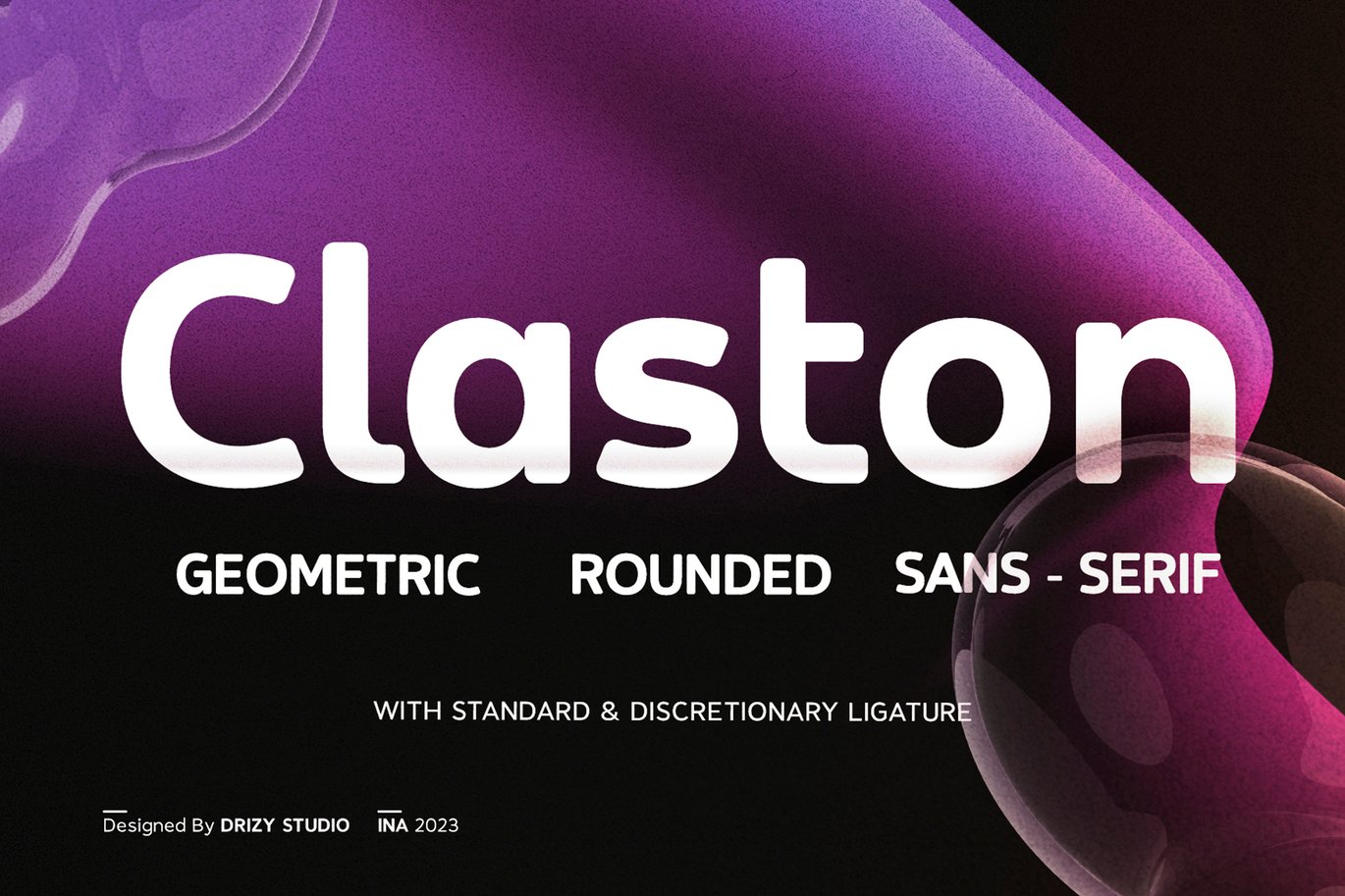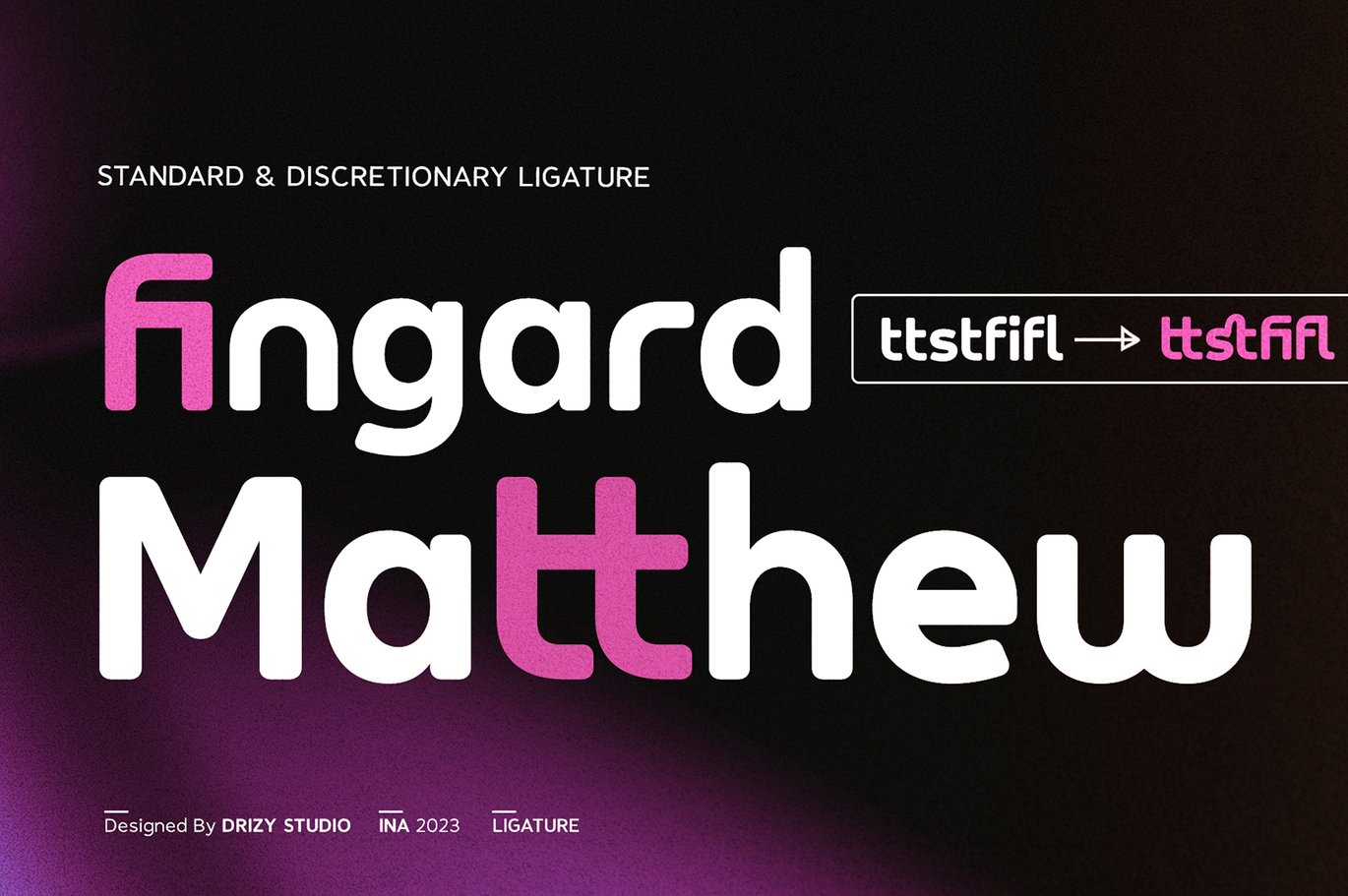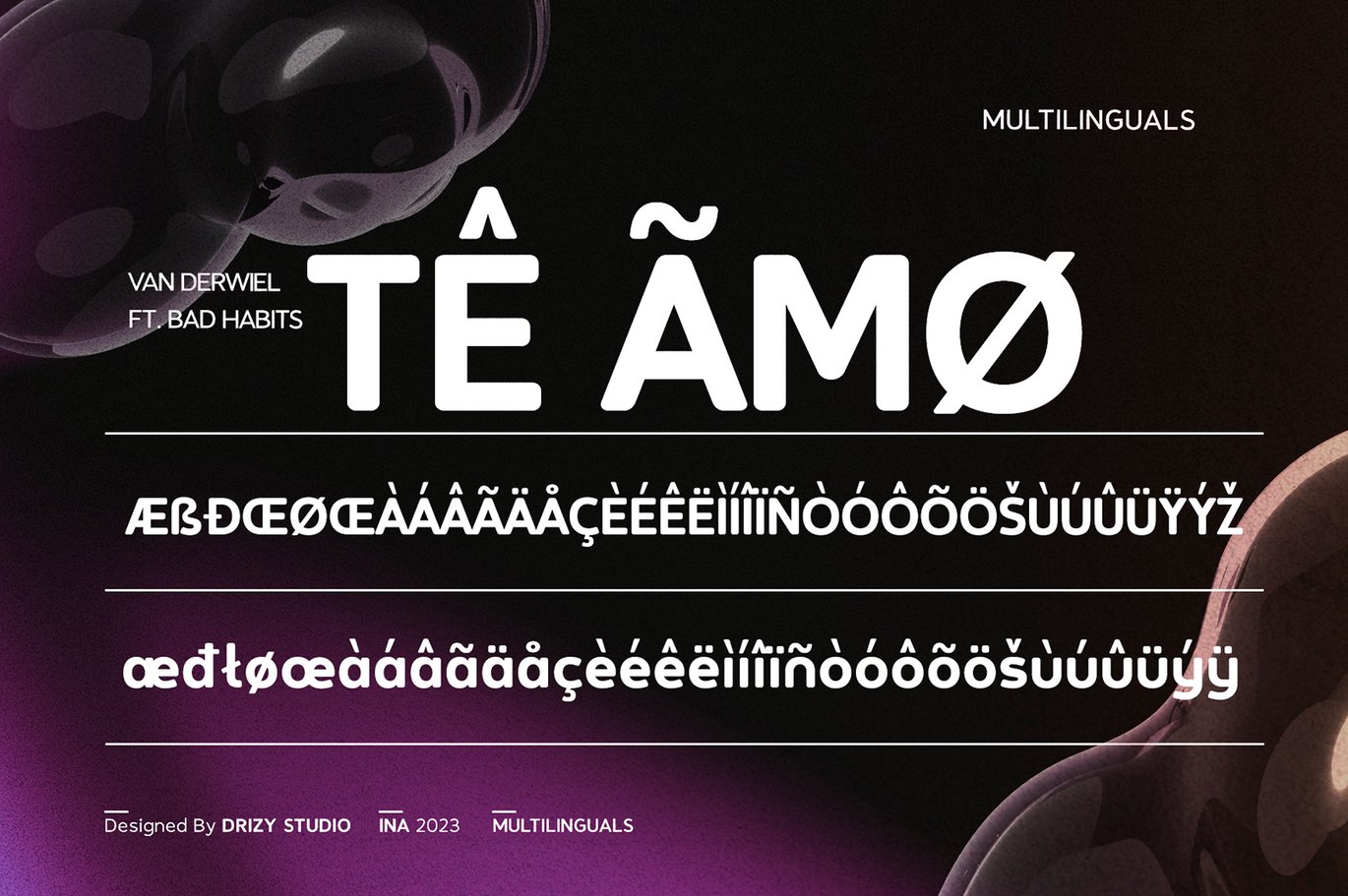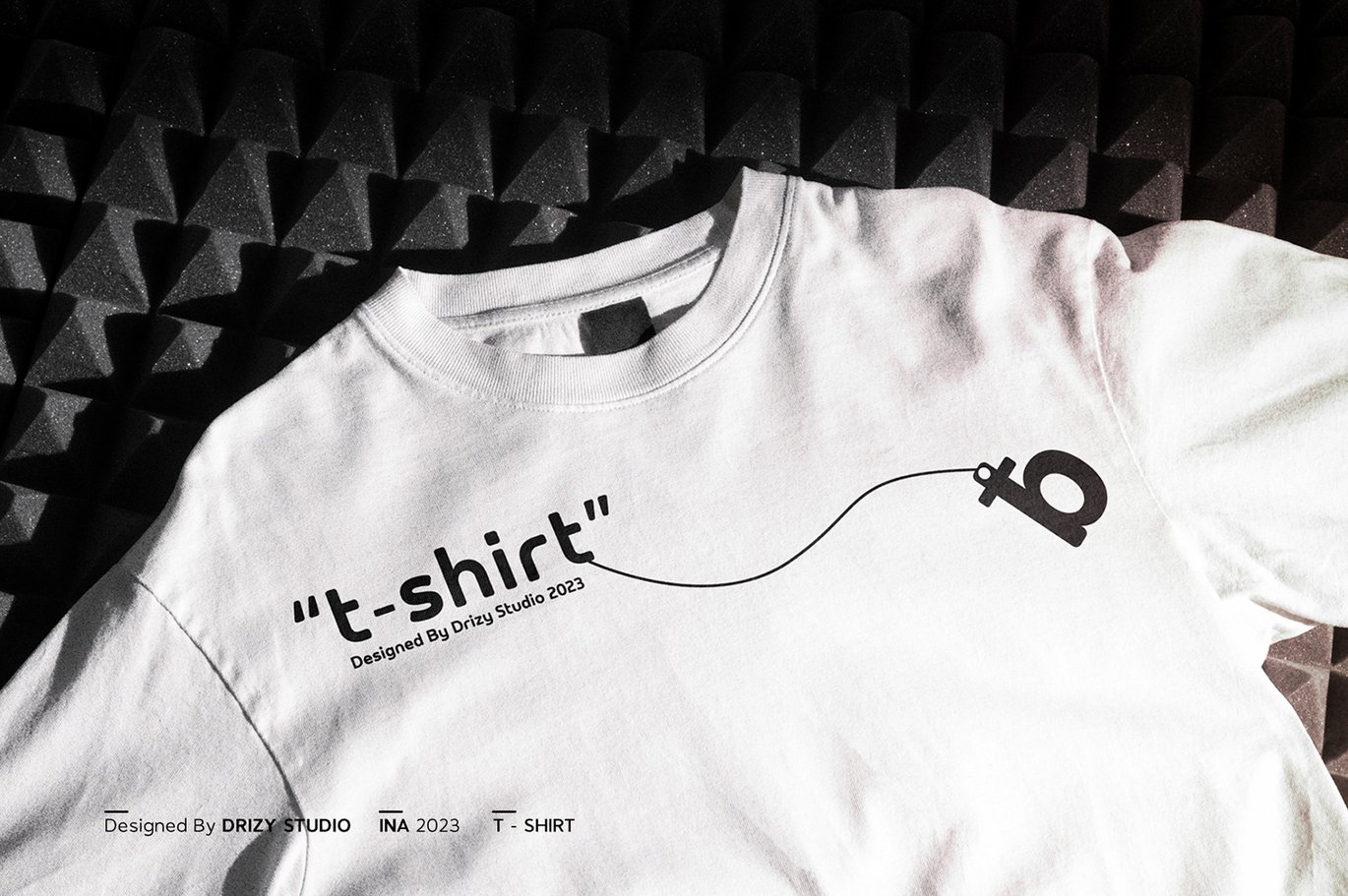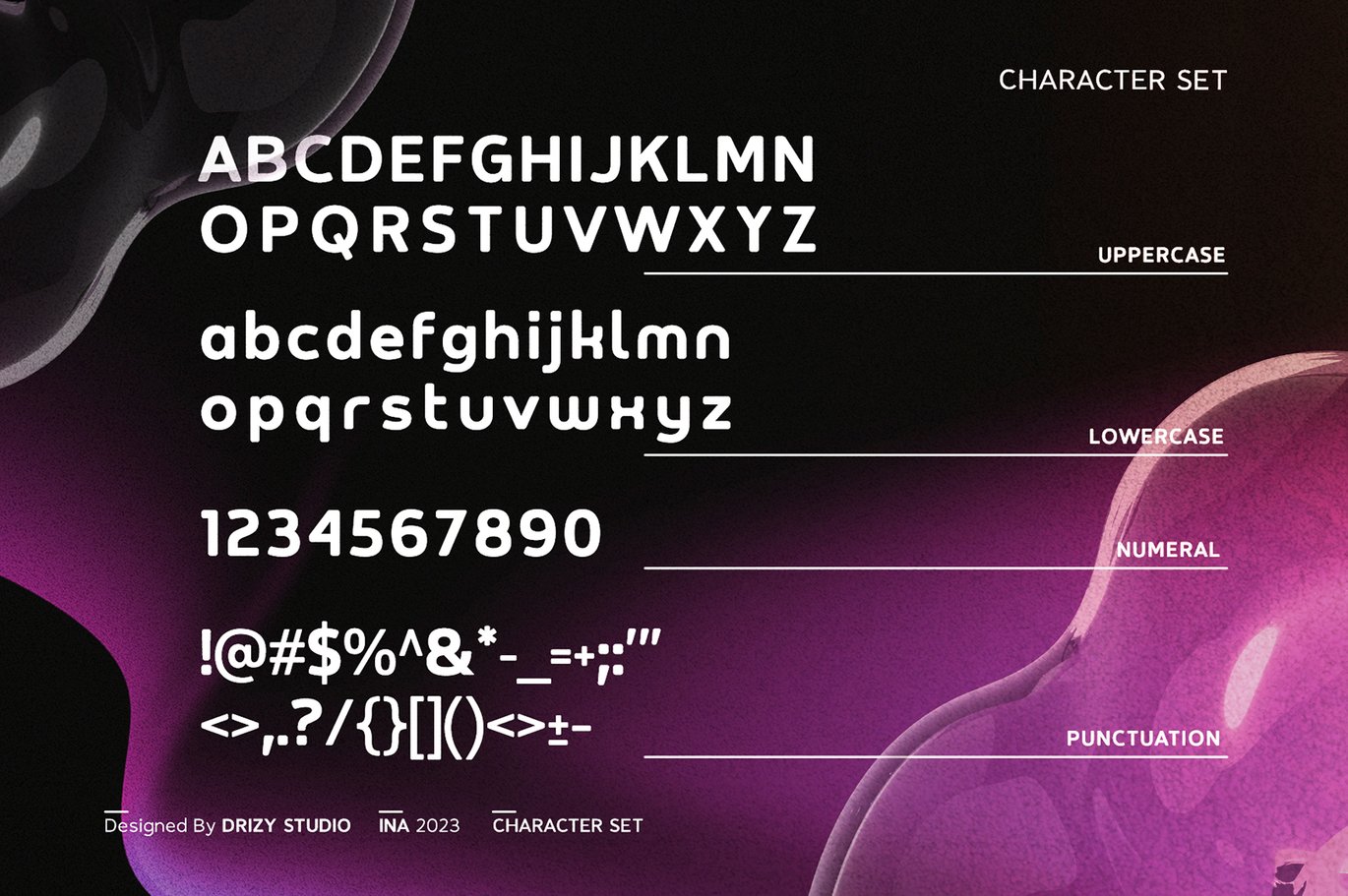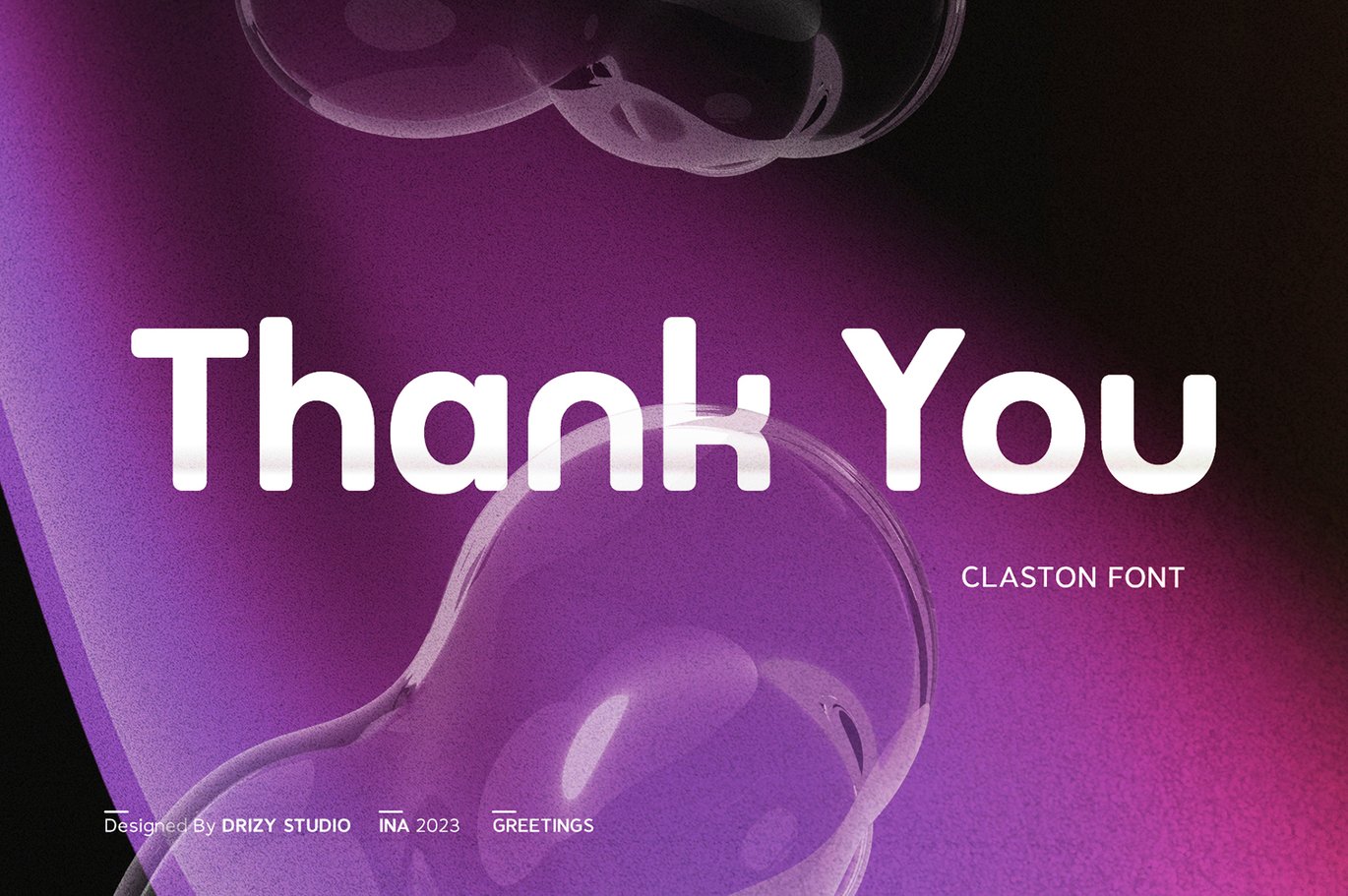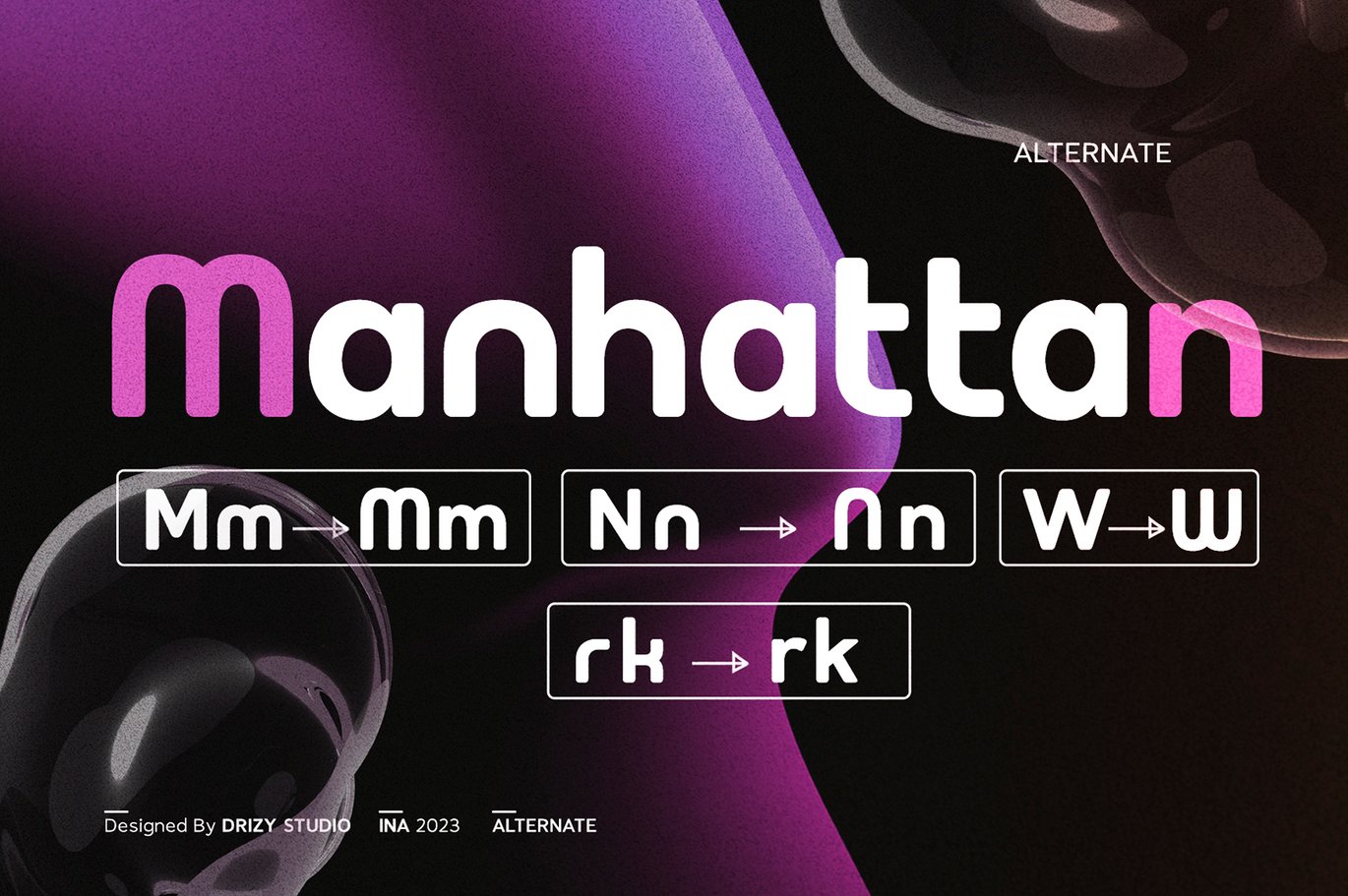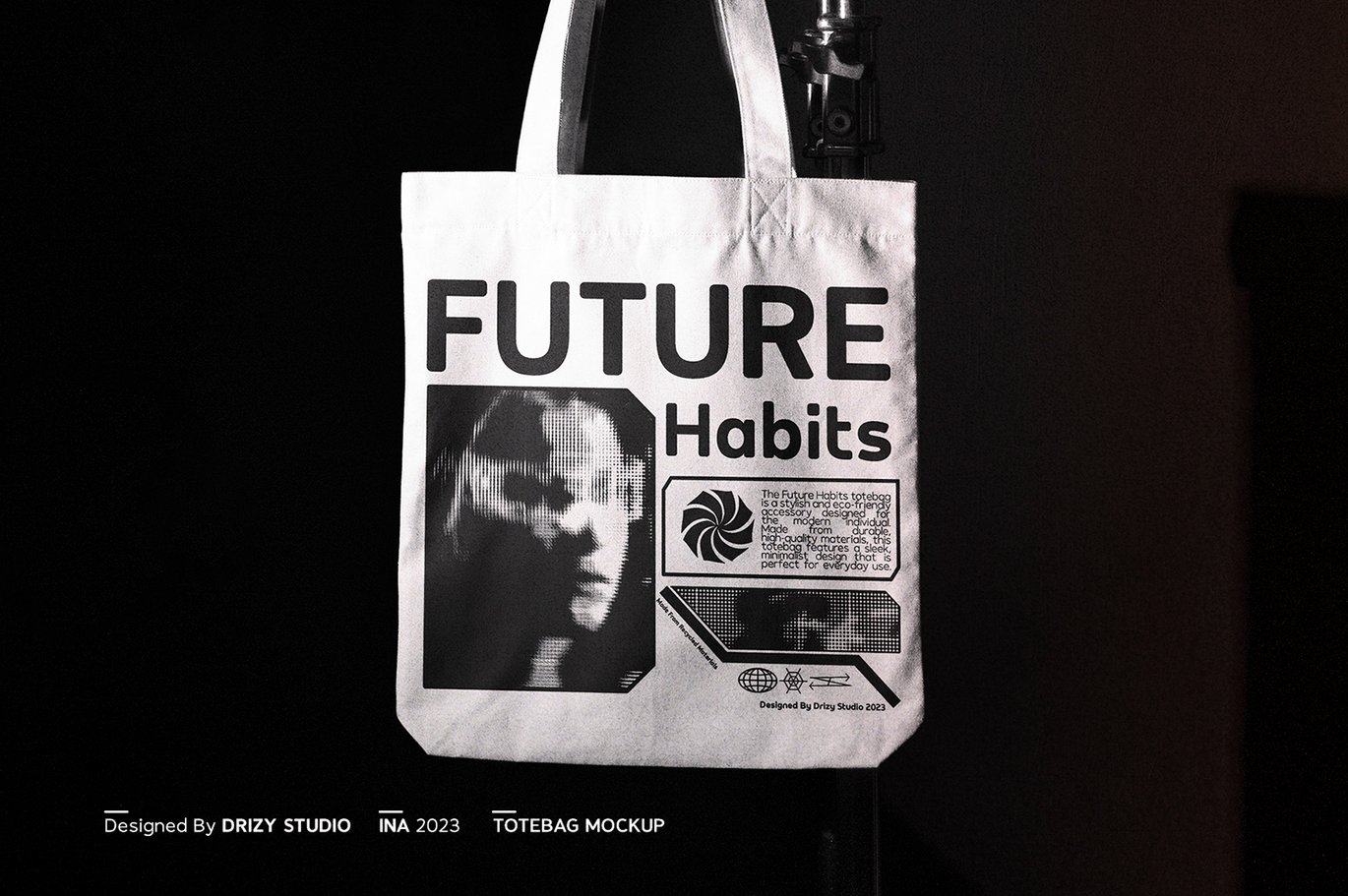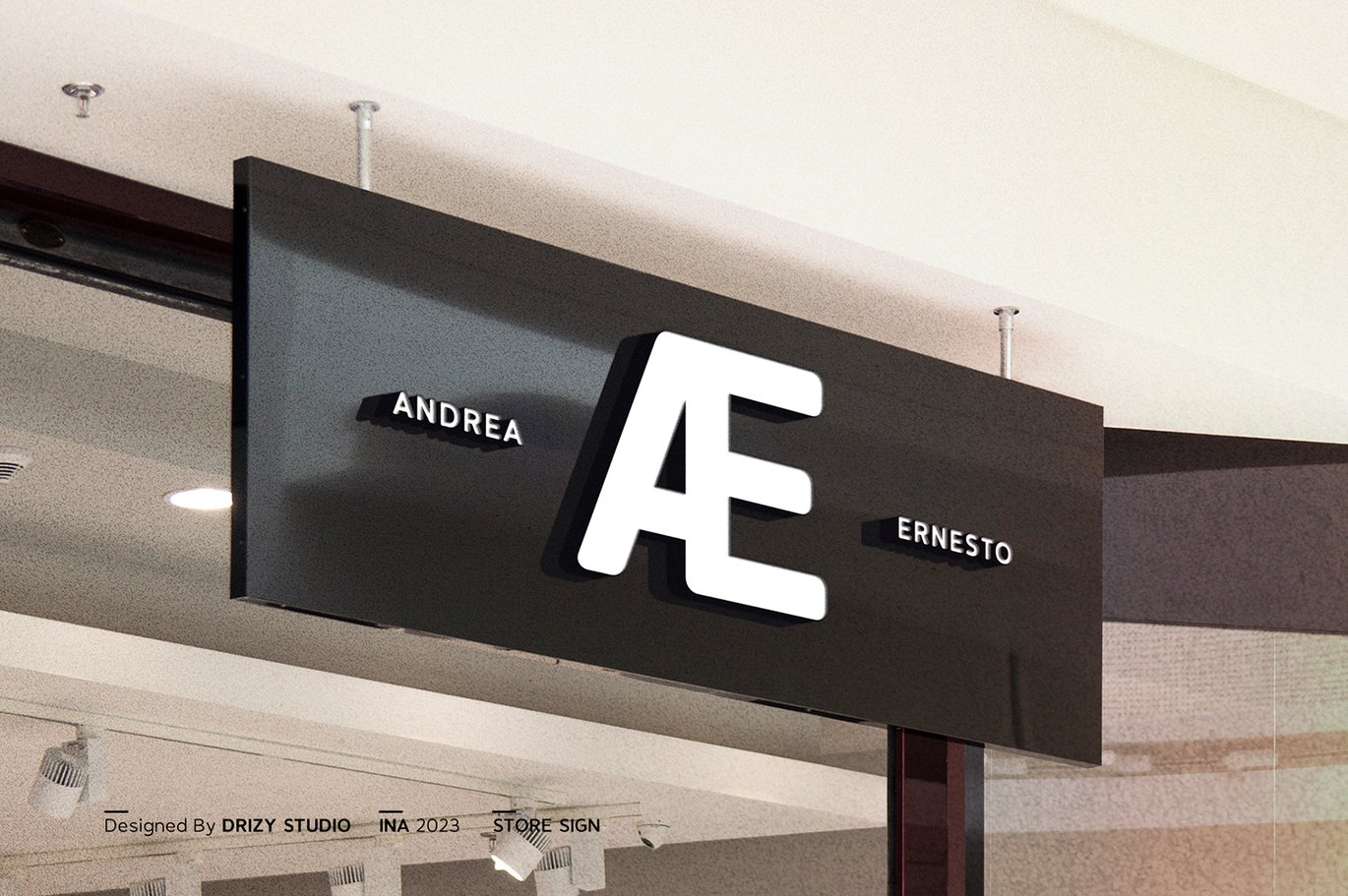
Claston – Geometric Rounded Font
Claston is a Geometric Rounded Font from Drizy Studio. Offering all the styles you need for your projects.
Garmot features:
Uppercase & Lowercase
Alternates
Ligatures